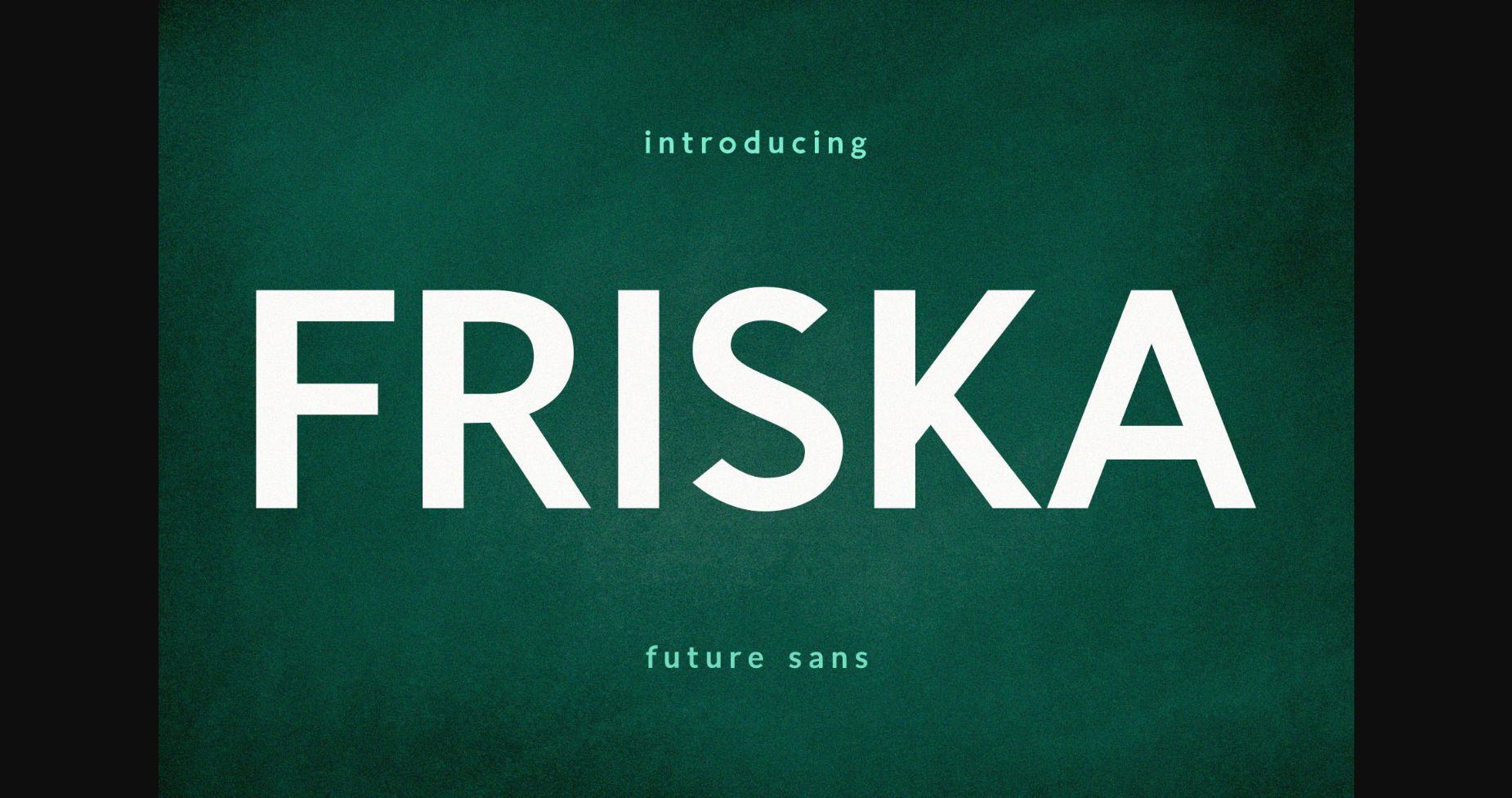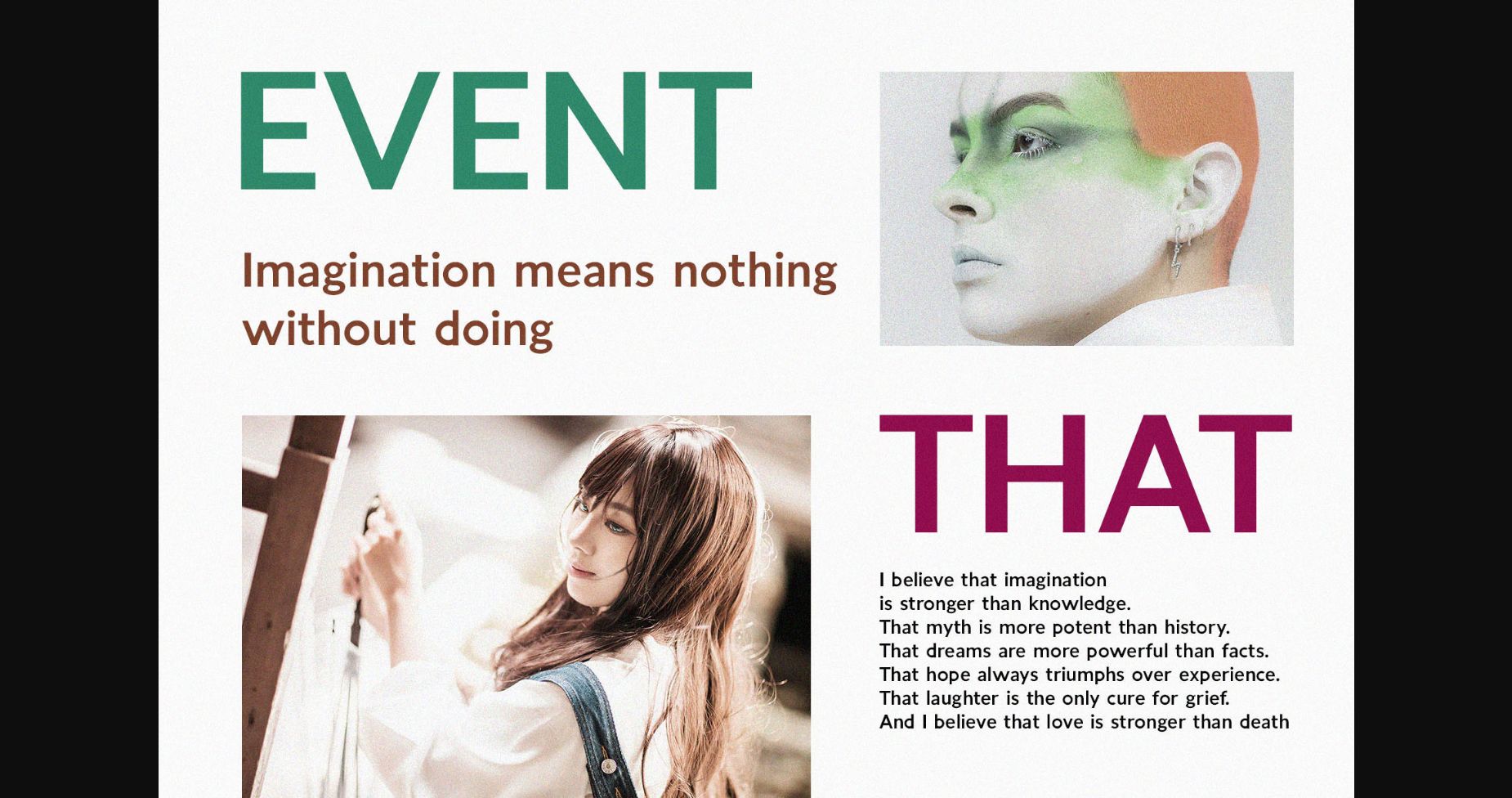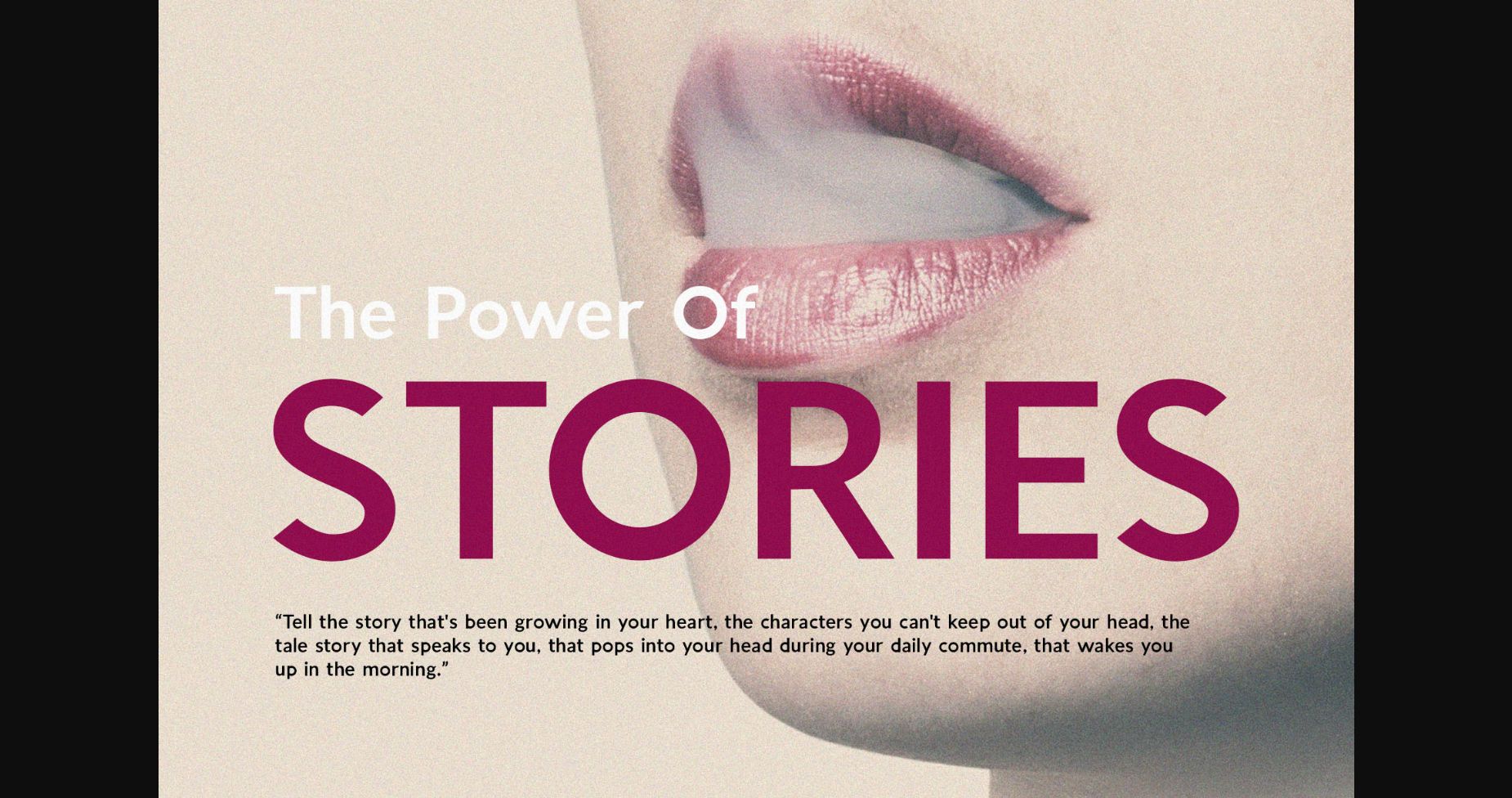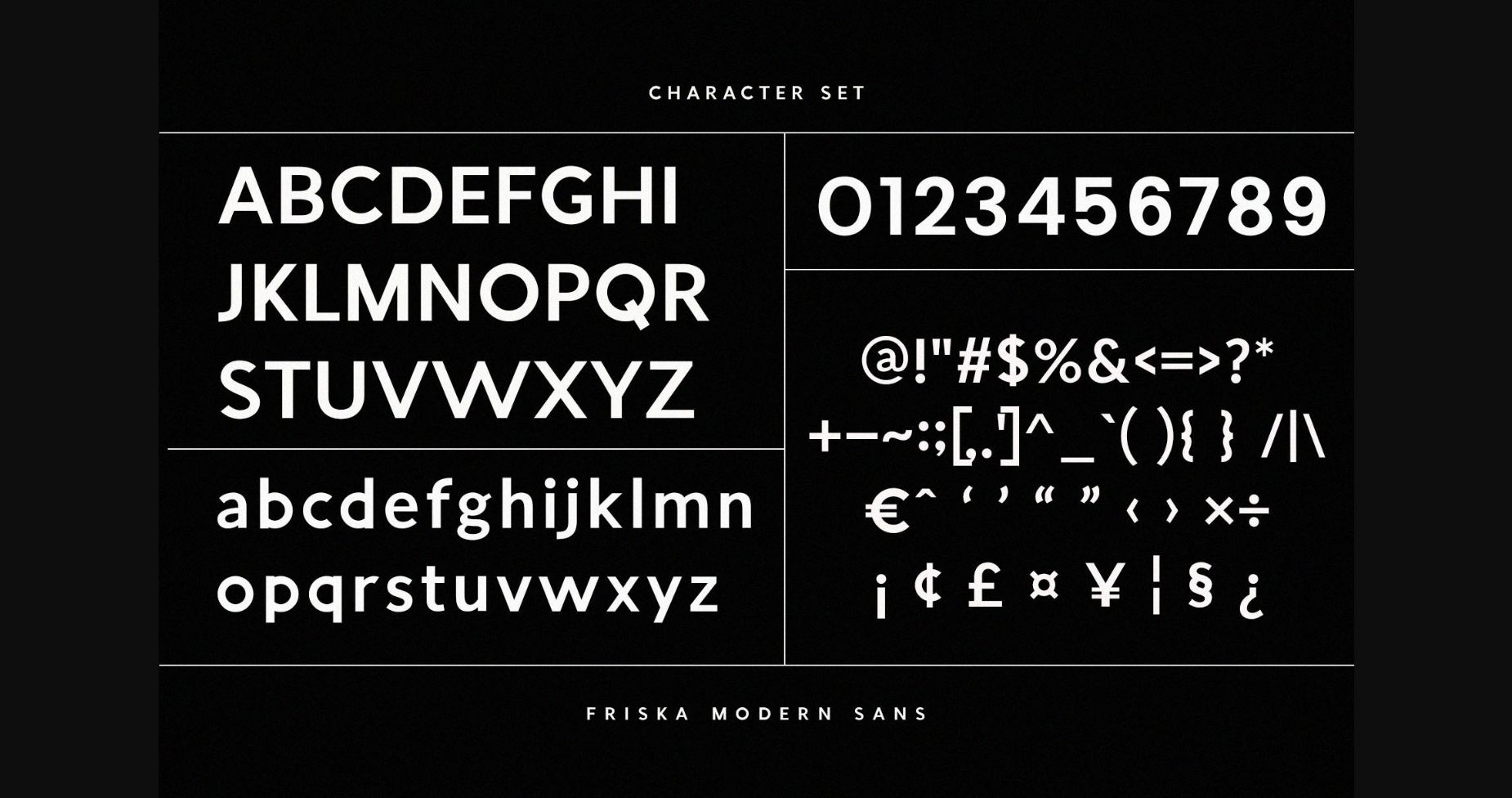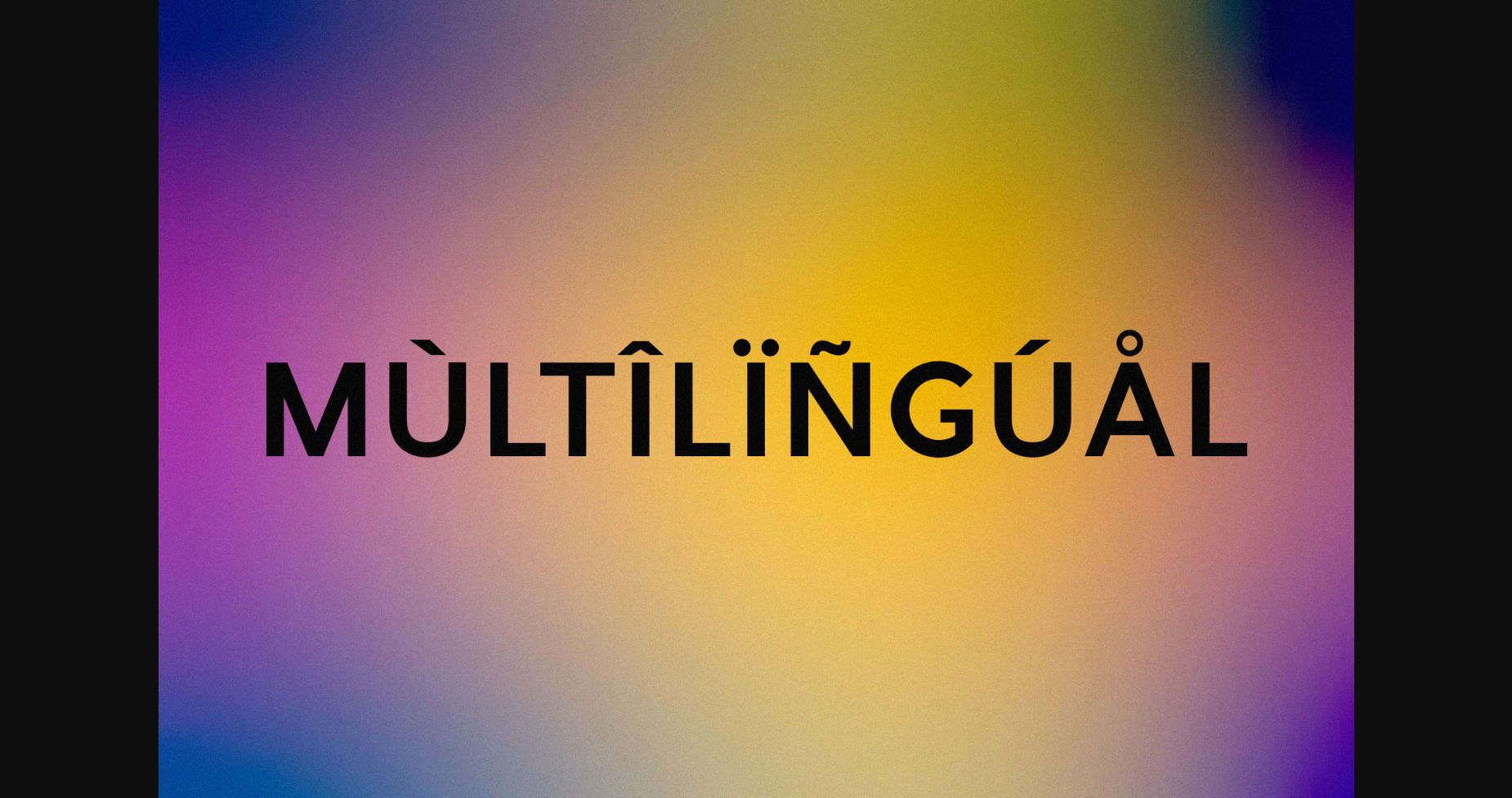
Friska is a classy and modern sans serif font perfect for websites, logos, magazines, social media posts, and many more. If you need a touch of elegance for your designs, this font is made for you!